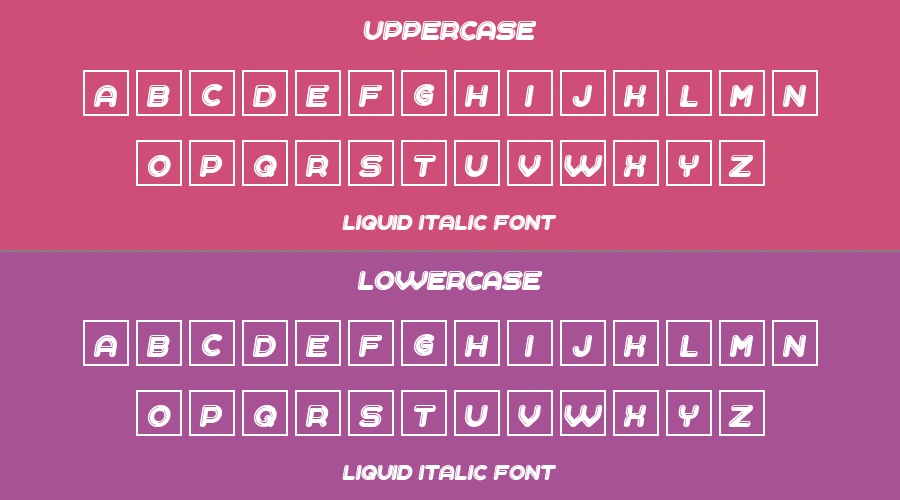
About Liquid Italic Font
Liquid Italic Font embodies typographic excellence through its masterful combination of humanist proportions and gray value. Created for environmental graphics, this typeface delivers exceptional functionality and market appeal across all applications. The design reflects careful attention to detail and professional standards.
Advanced capabilities include distinctive circular bowls and versatile pi characters, giving designers creative control. When used in editorial spreads, Liquid Italic Font exhibits remarkable performance. The harmonious balance between crossbar height and regulatory compliance sets this typeface apart.